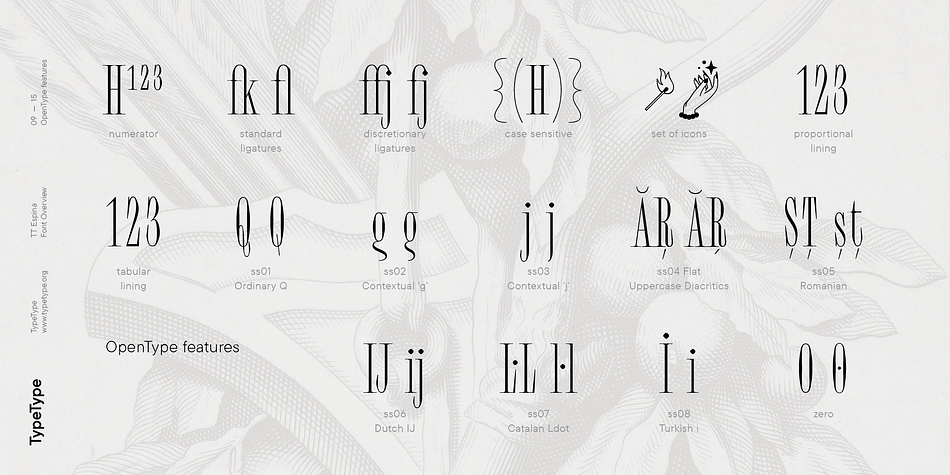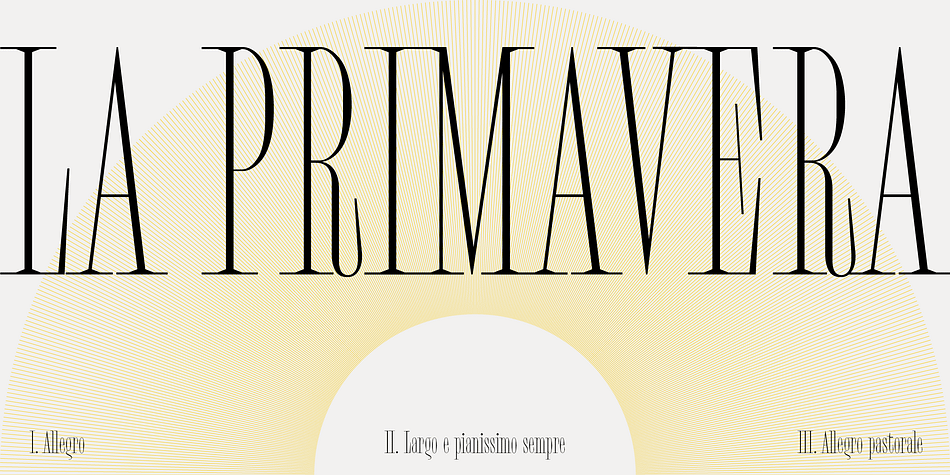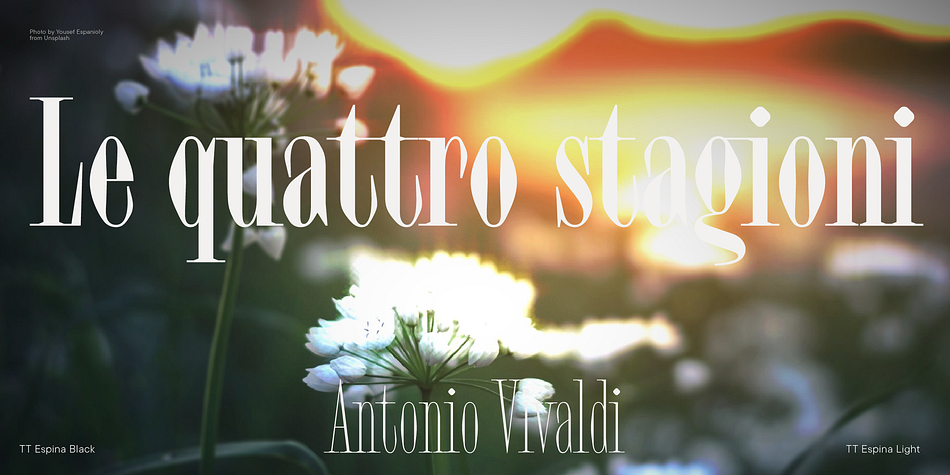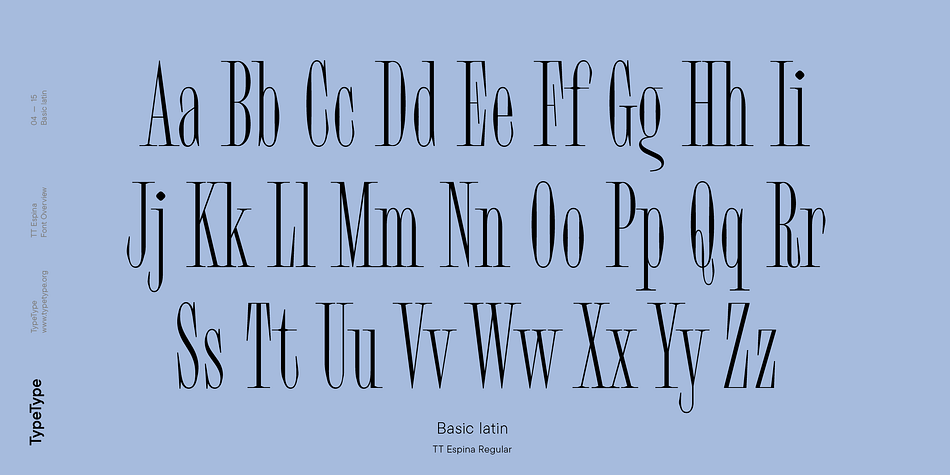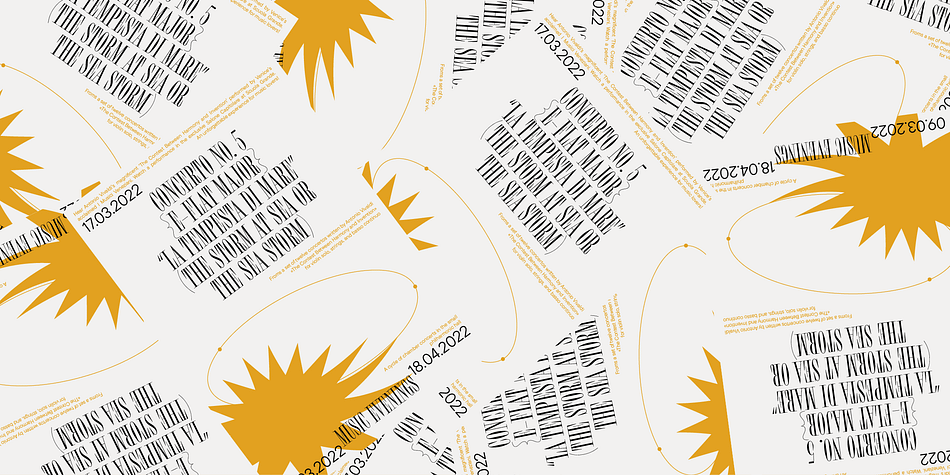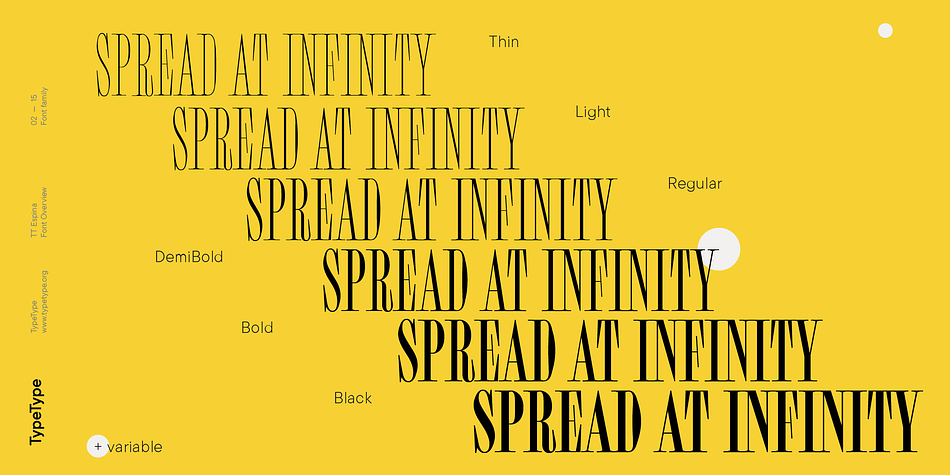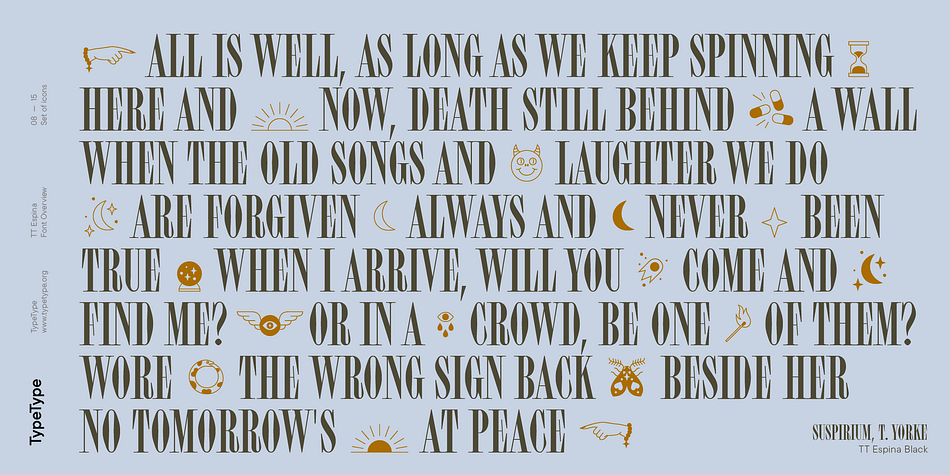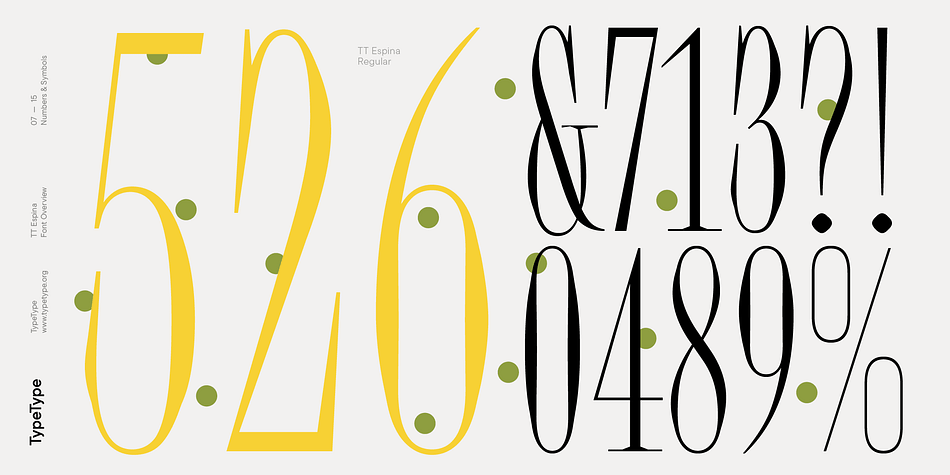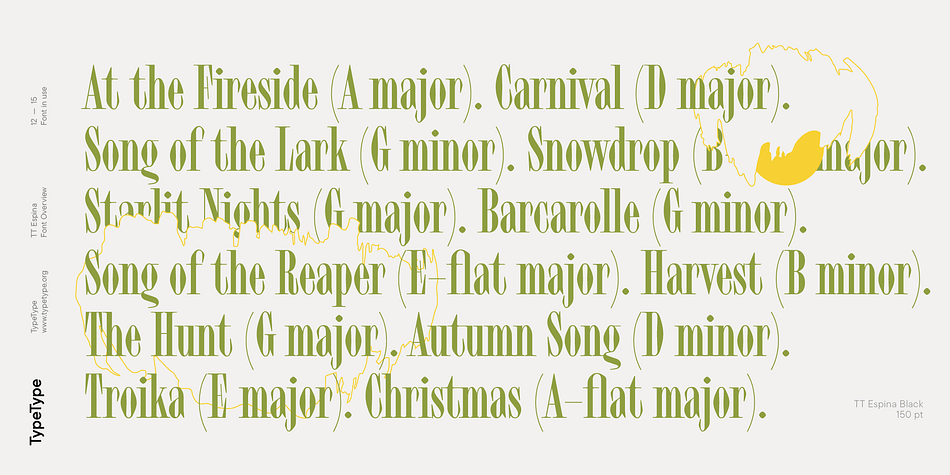
TT Espina
Designed by Kseniya Karataeva, Yulia Gonina and TypeType Team, TT Espina is a display serif and serif font family. This typeface has seven styles and was published by Typetype.
TT Espina is a display antiqua with expressive serifs. Inspired by the historical shape of the letter O, which took on a diamond shape due to print quality, the designers created a modern typeface with high contrast between horizontals and verticals.
TT Espina is yet another proof that antiquas can be stylish and expressive display fonts suitable for modern projects. TT Espina will look harmoniously in headlines of posters or billboards, in gallery and exhibitions design, in large-format printed materials or on websites.
The font is easily distinguishable among other antiquas by its high contrast, expressive and large serifs, closed aperture and diamond-shaped circles. TT Espina’s characters are quite narrow, which adds to the materials designed using the font a special aesthetic. It makes you to look closely into each letter, so the headlines set in TT Espina will definitely be read. A full set of different icons is a nice addition for designers who will work with a new typeface.
TT Espina consists of 7 typefaces: 6 romans and 1 variable. Each typeface has 648 glyphs. The font family has 21 OpenType features, including changing the shape of some characters (Q, g, j), the possibility to replace characters with high-set diacritics with characters with low-set diacritics, which is convenient for poster design.